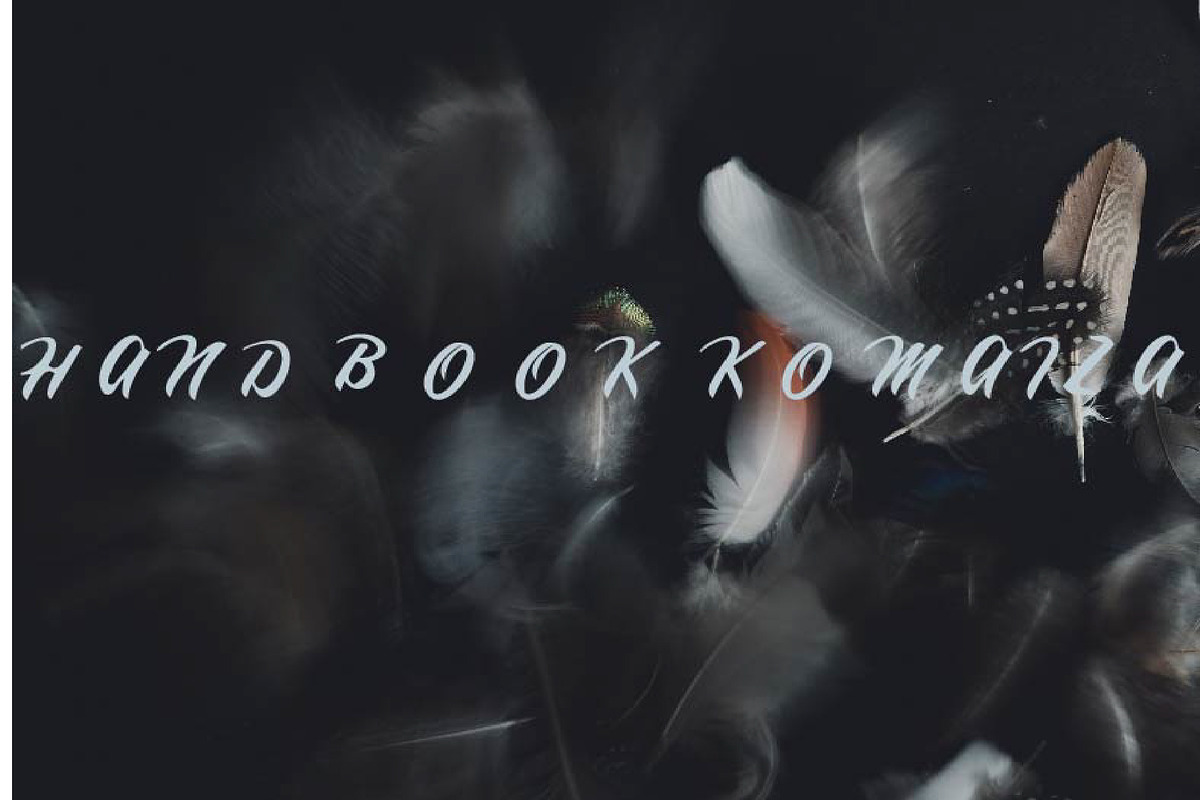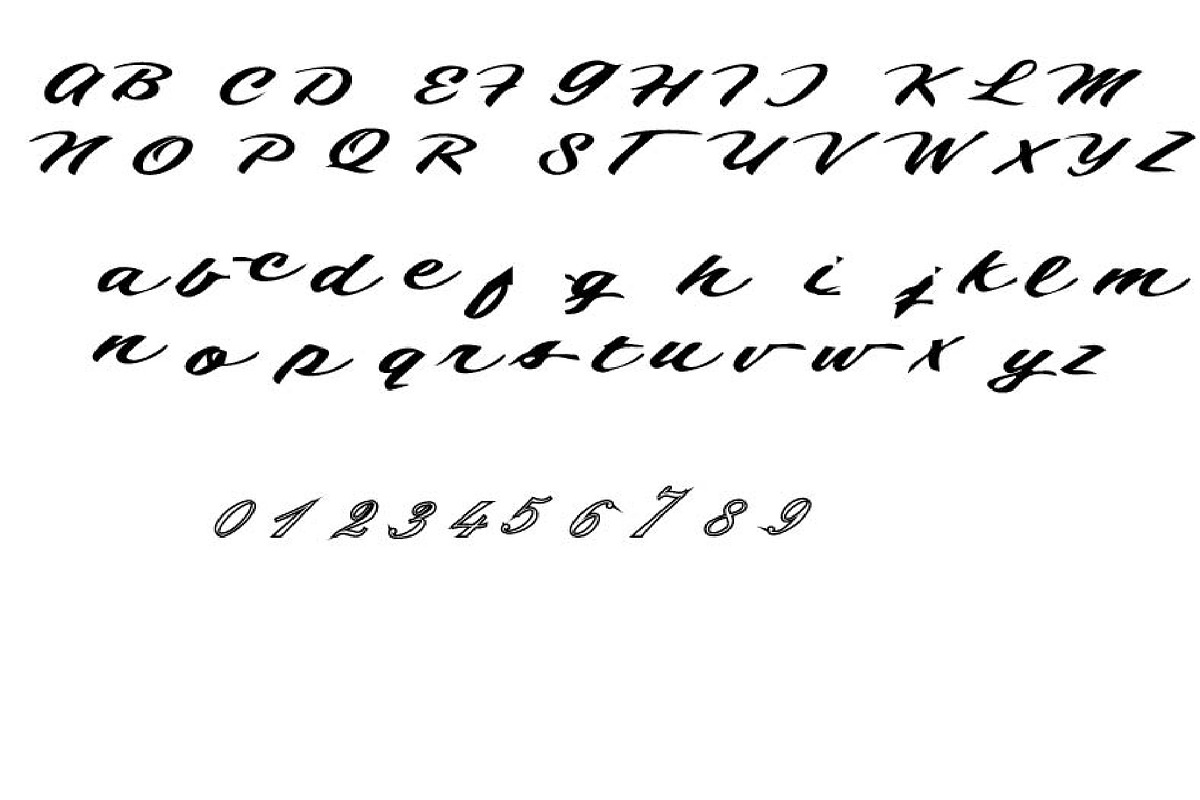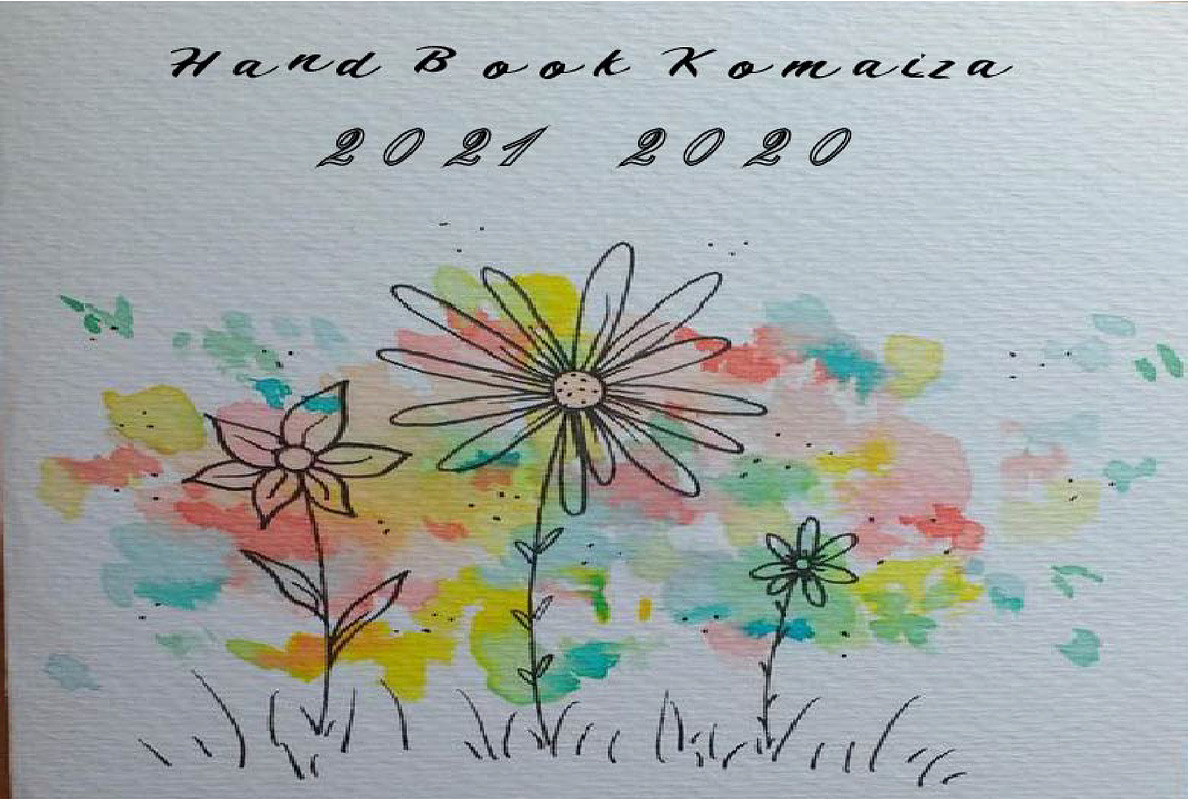
HnadBook Komaiza
HandBook Komaiza is a chic and flowing script font. It is defined by smooth curves and is perfect for fashion branding or editorial designs. Add it confidently to your projects, and you will love the results.